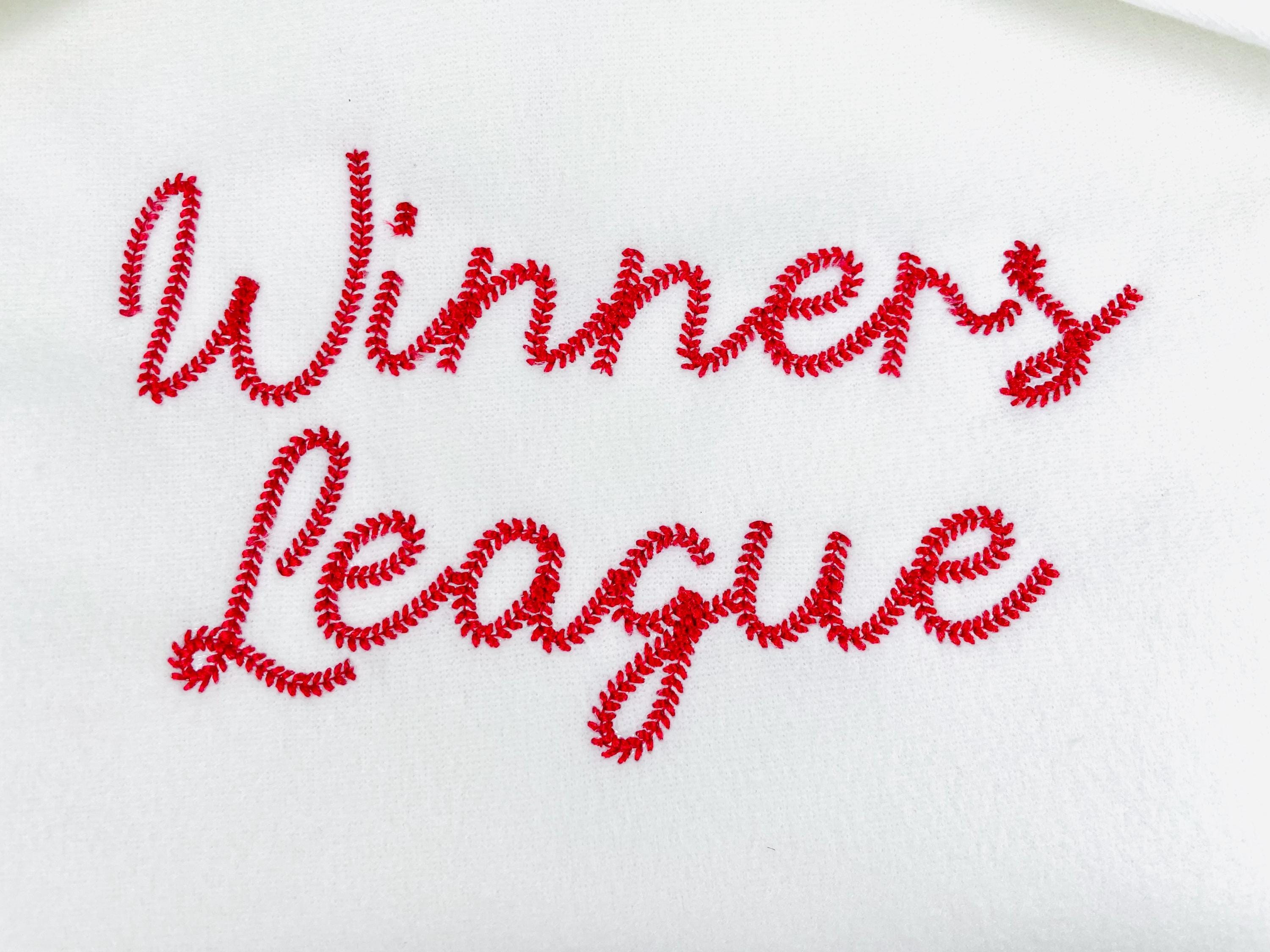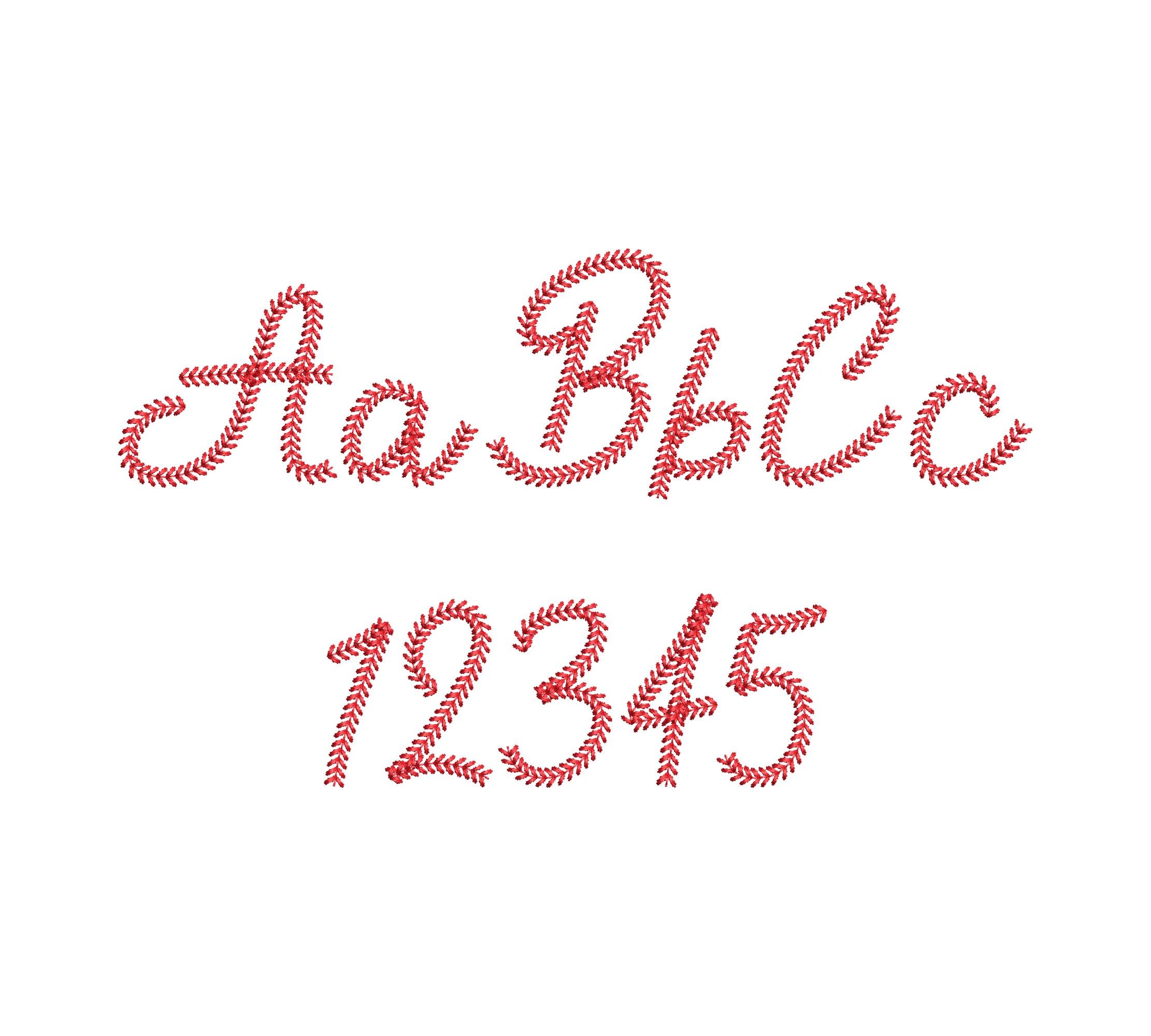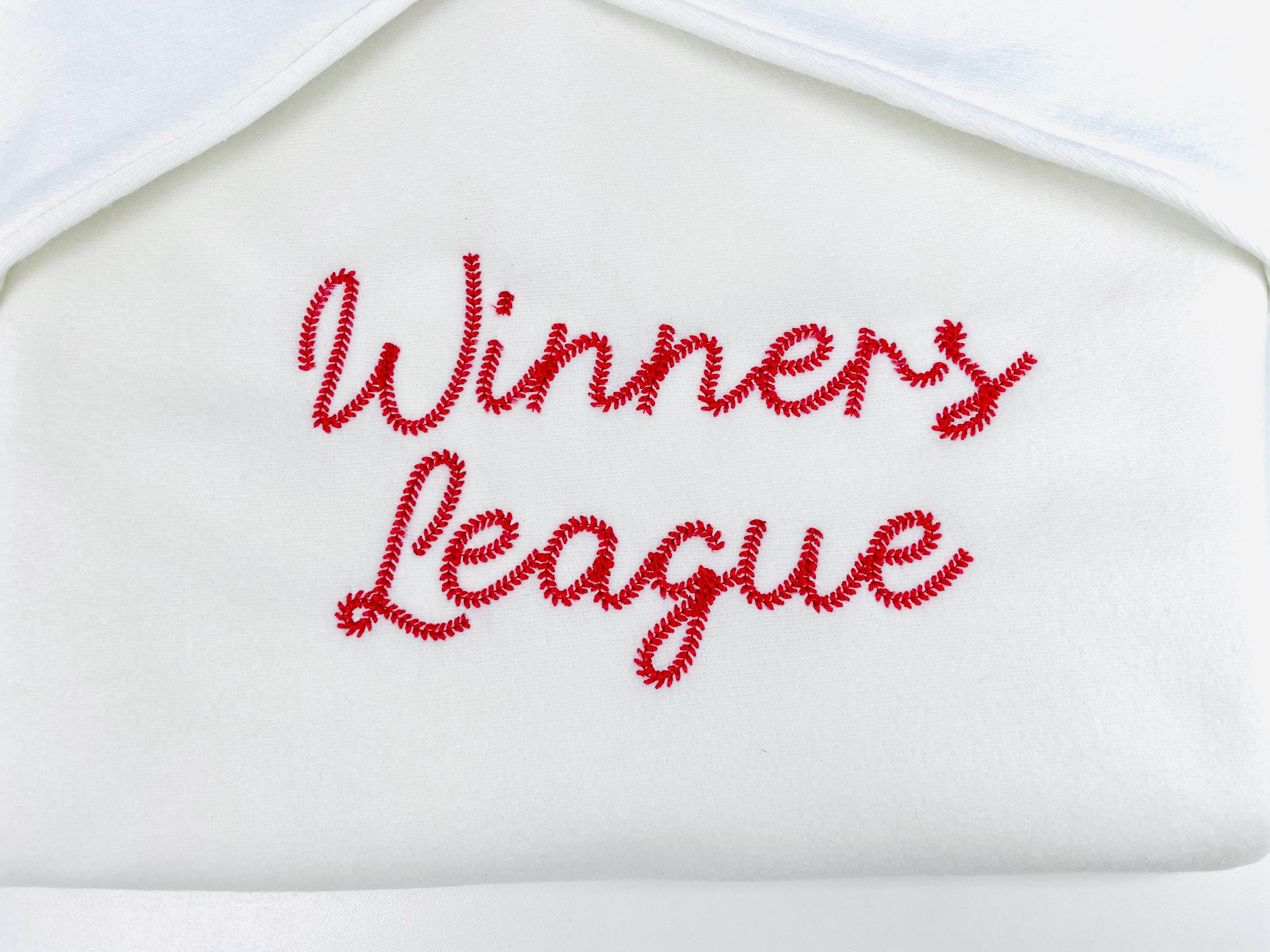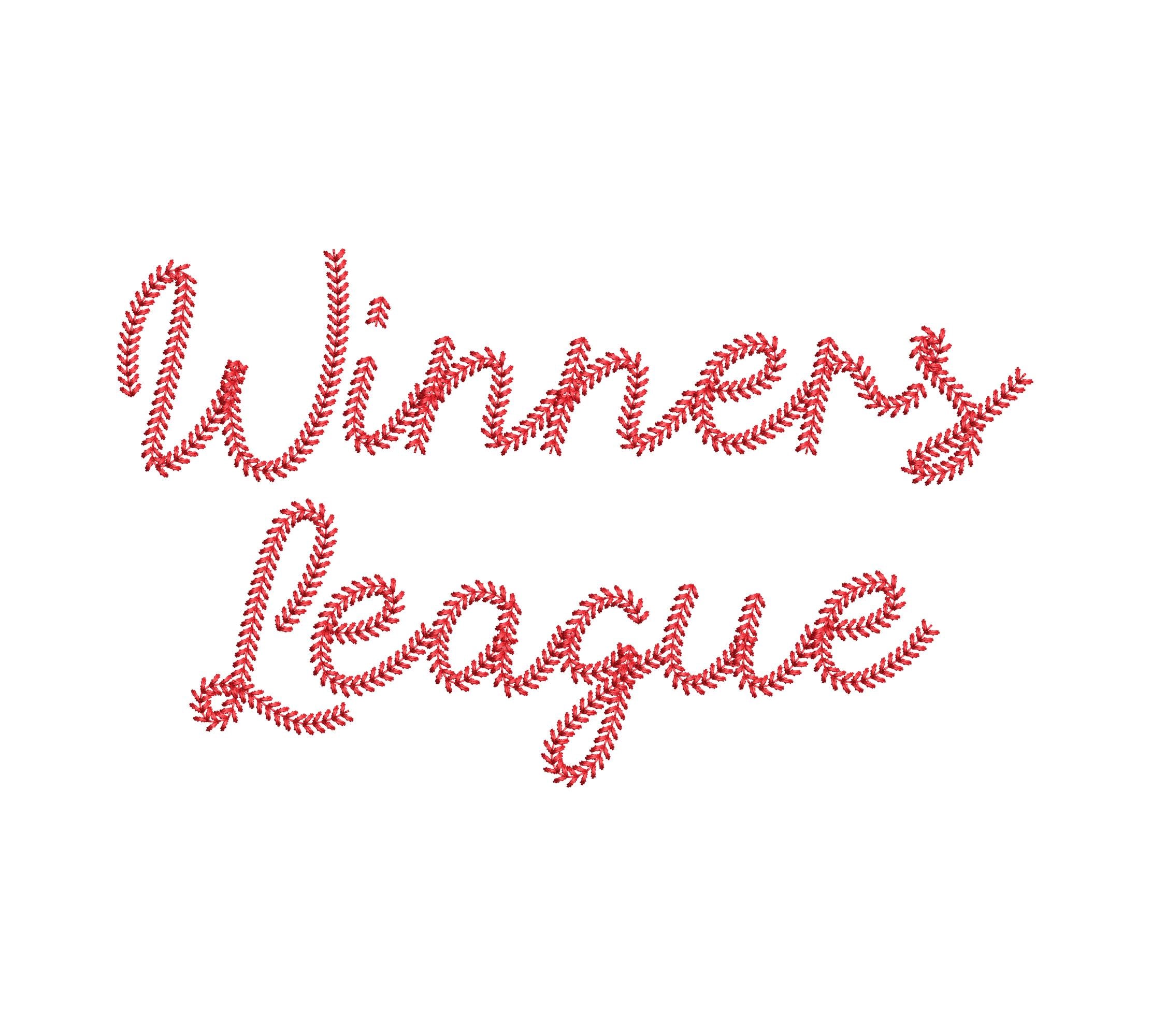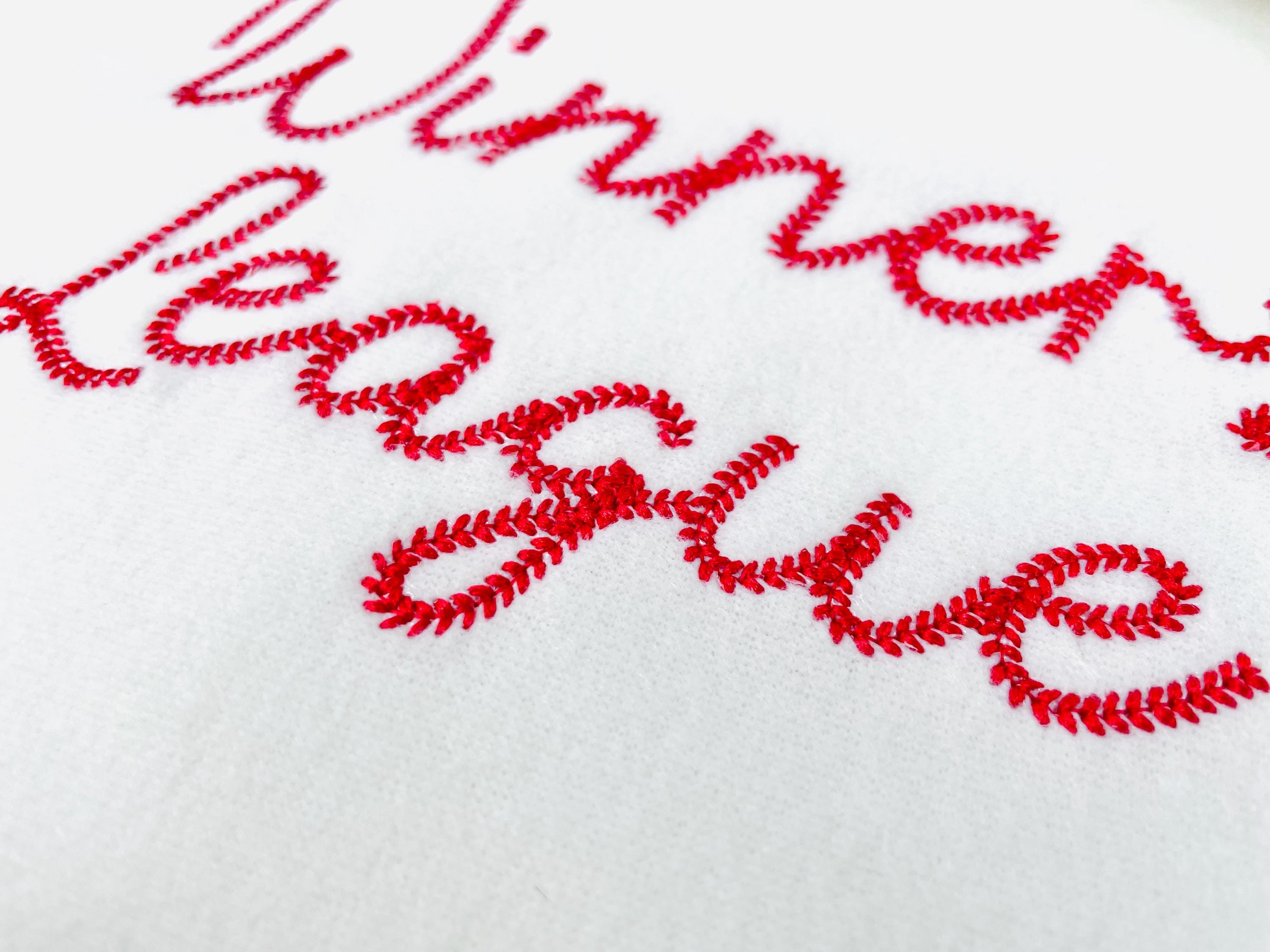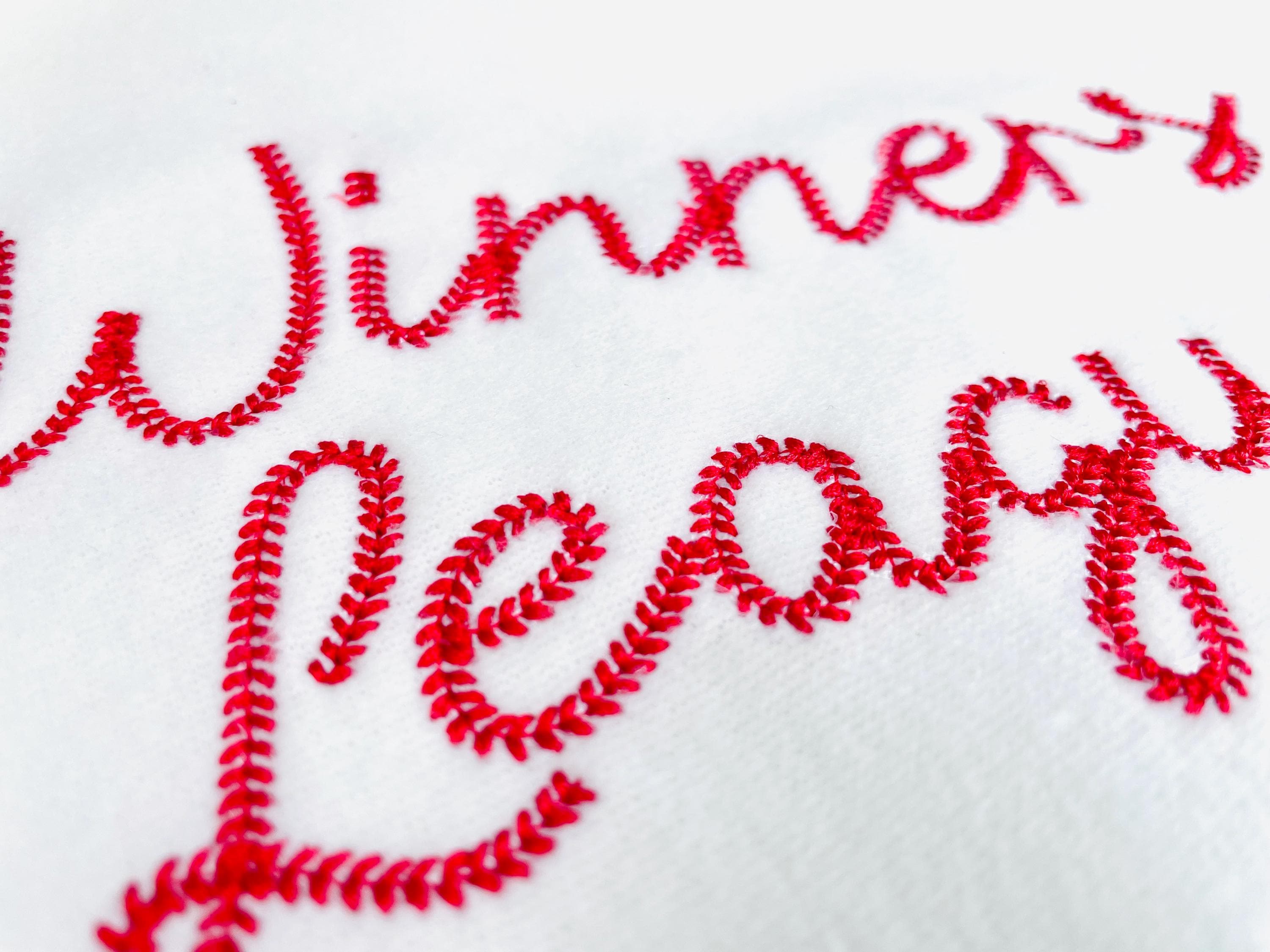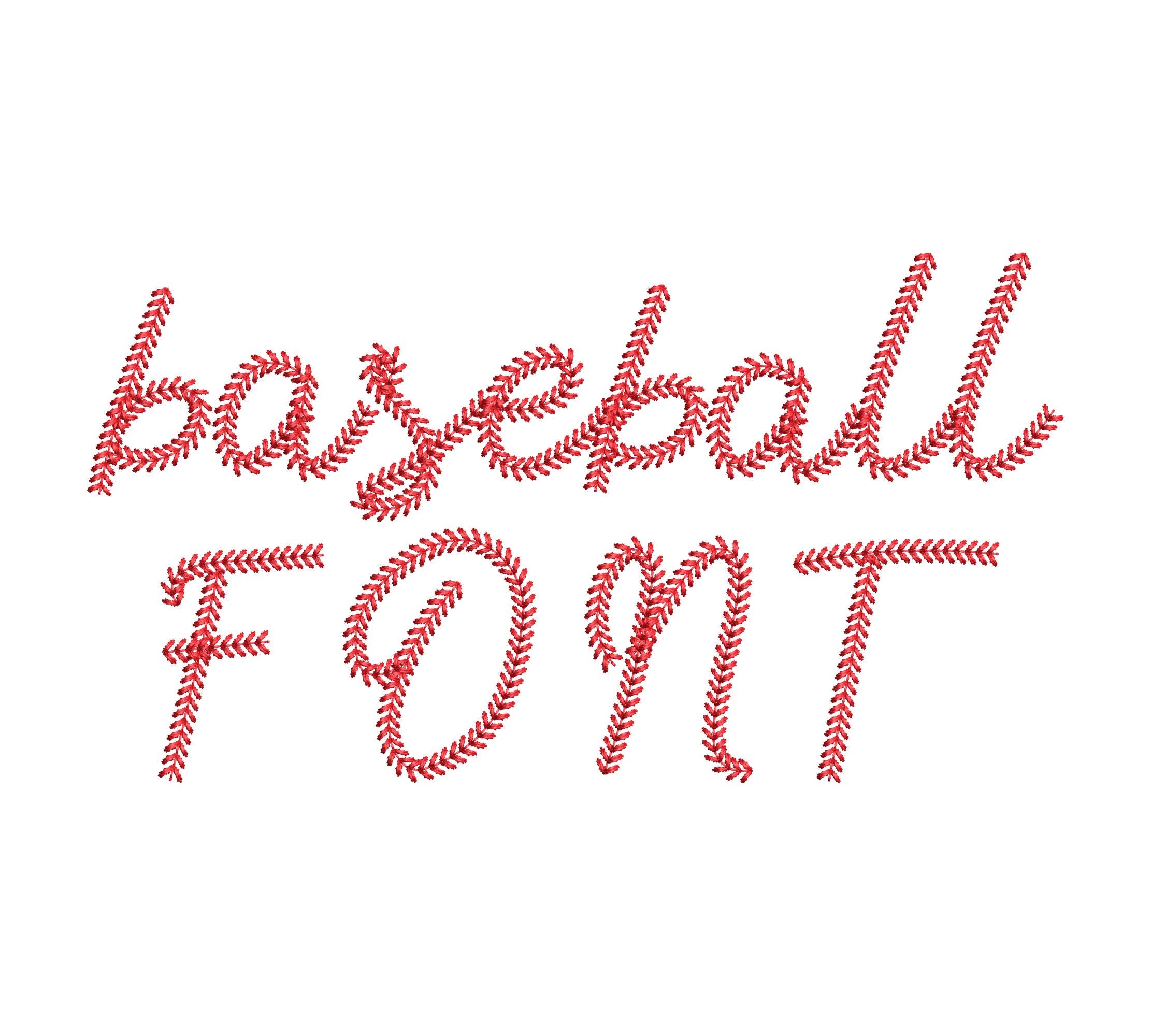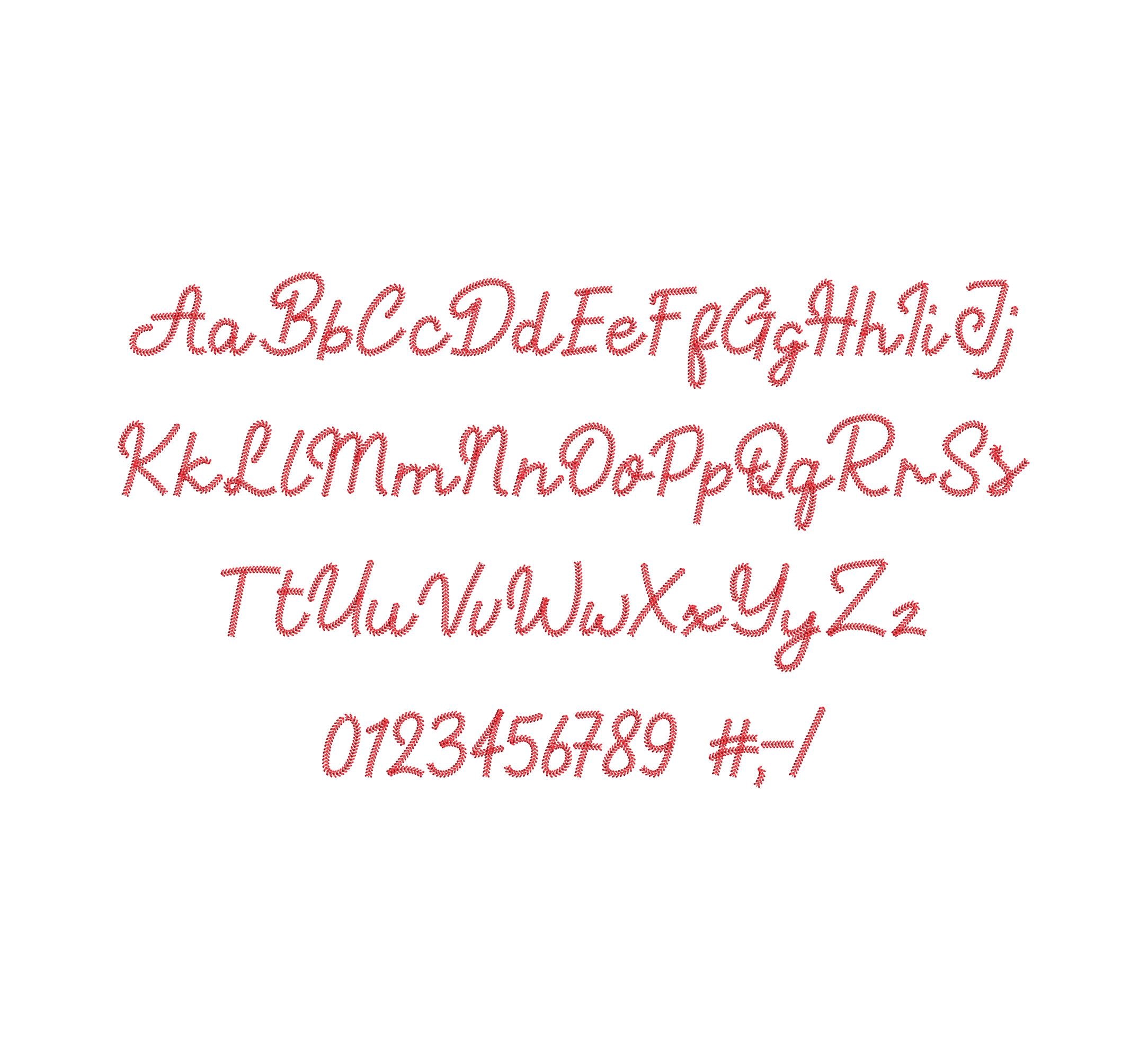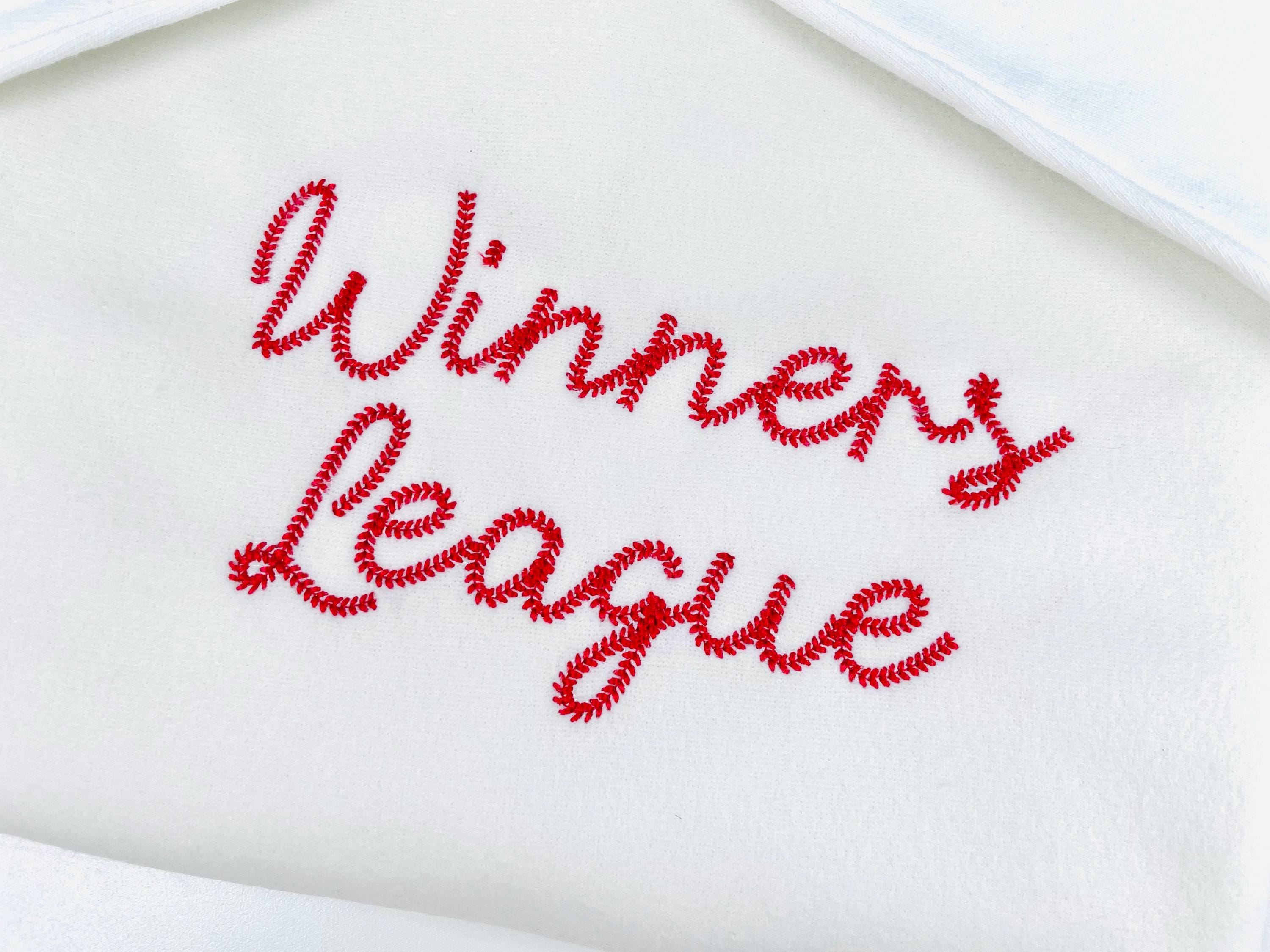
Best Winners Baseball FONT awesome sports stitch handwritten script Alphabet Monogram machine embroidery designs sizes 1.4 up to 3.5 inch BX
Entire alphabet Aa-Zz uppercase and lowercase letters, numbers 0-9, and punctuation.